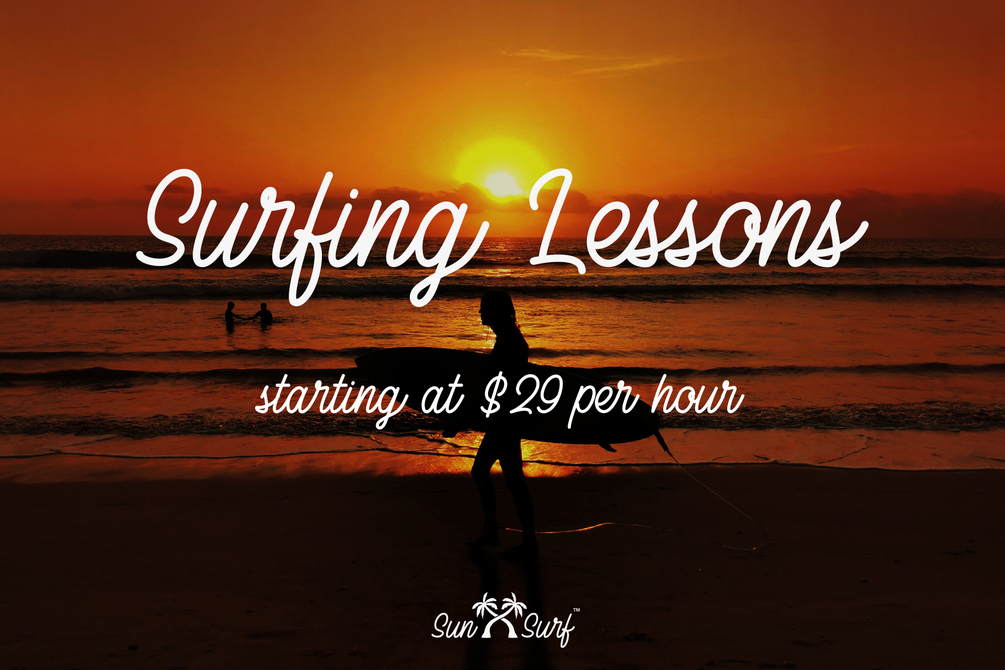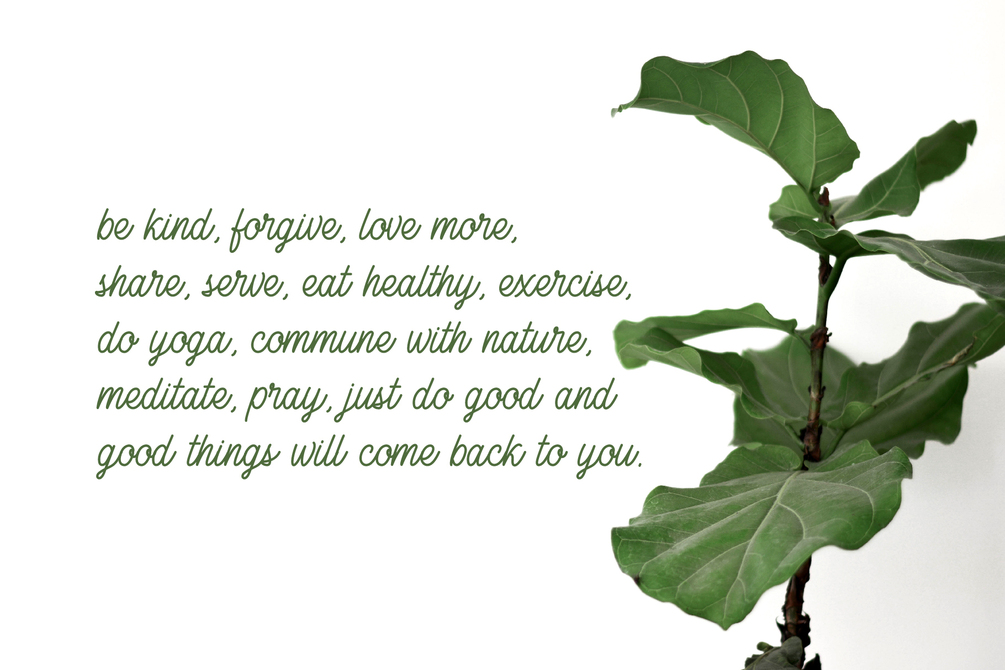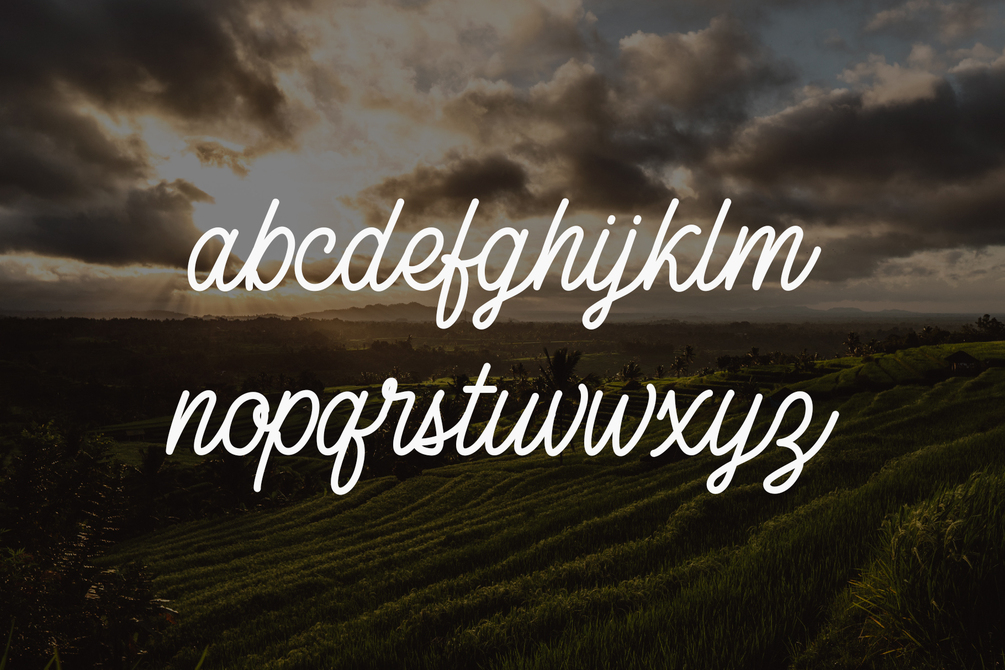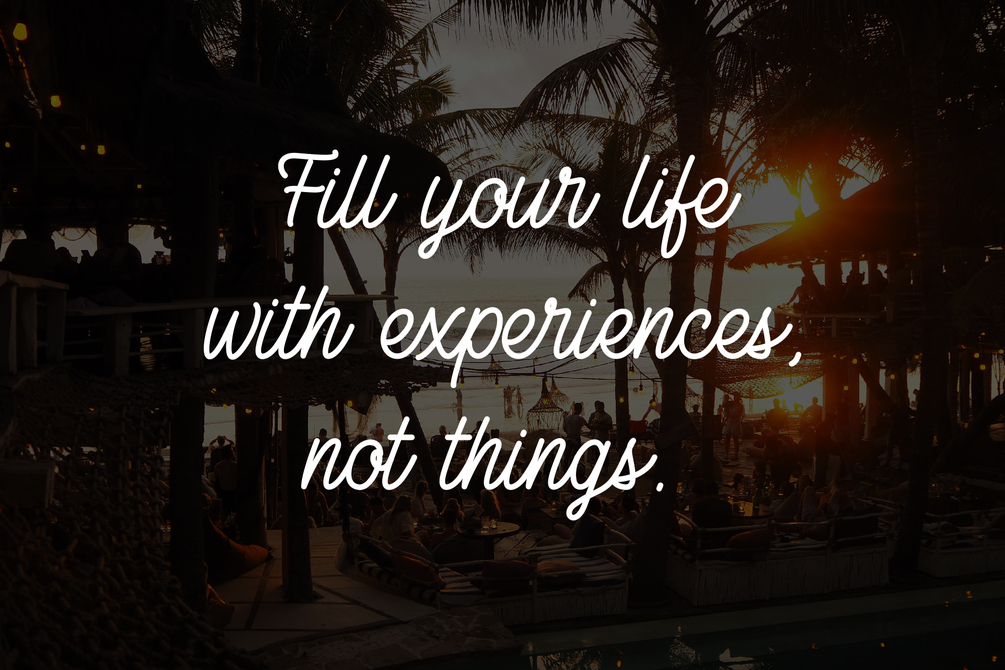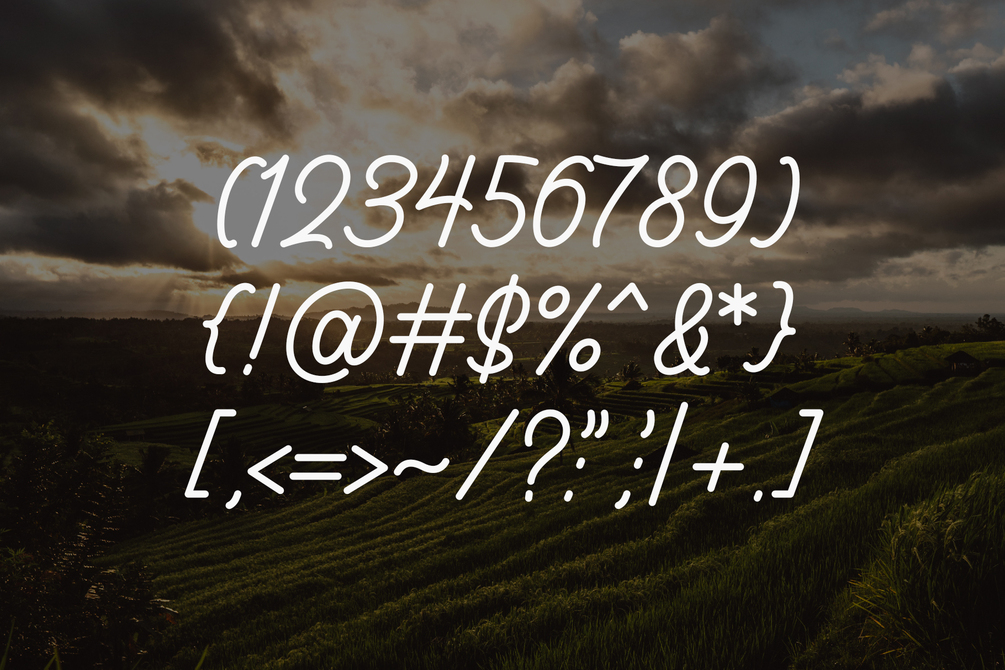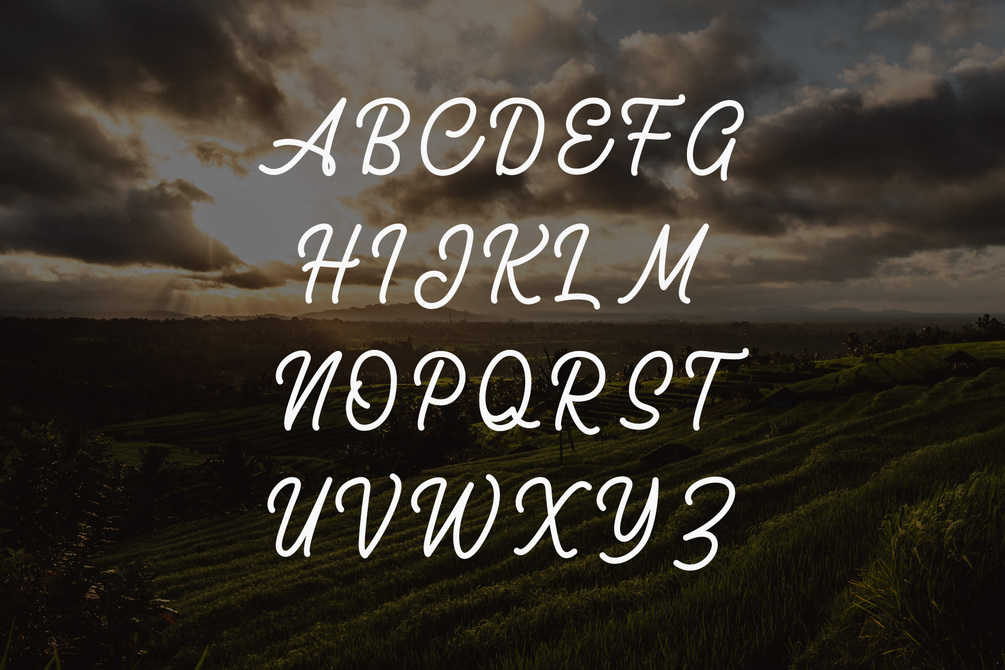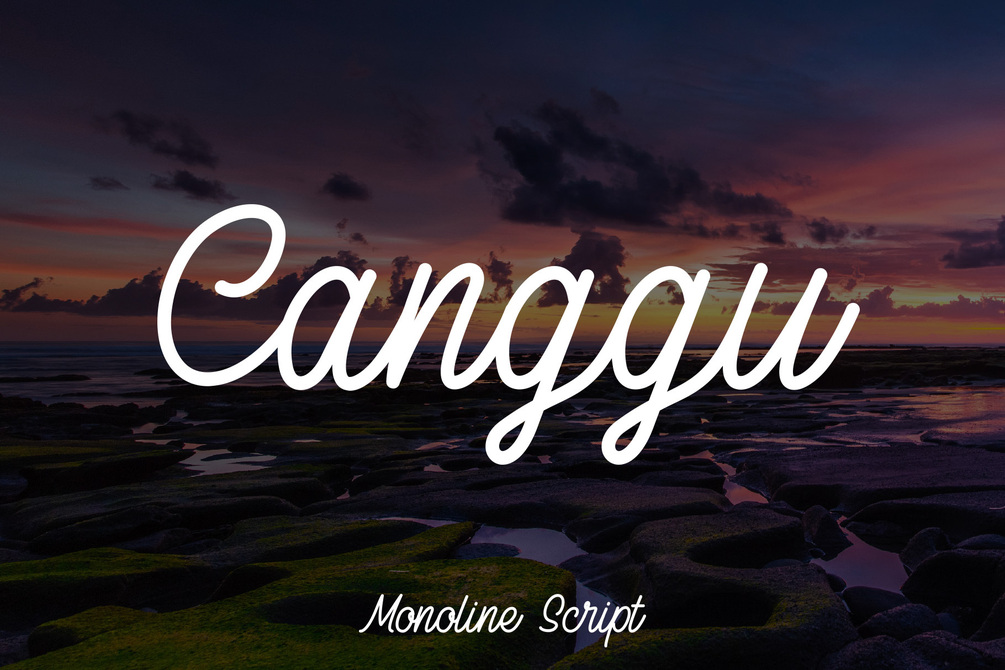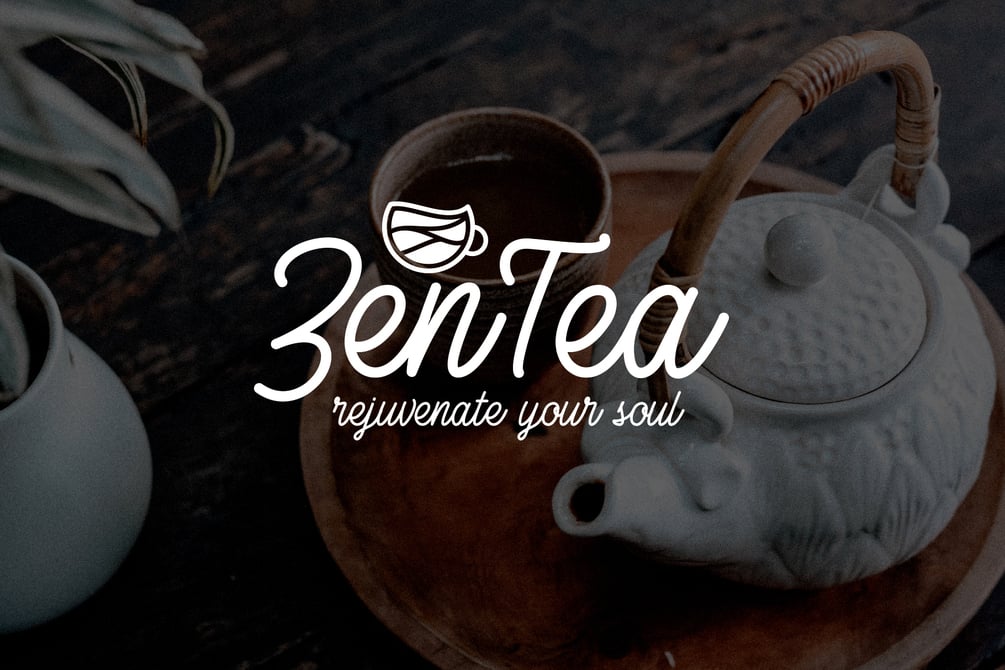
Canggu - Monoline Script Typeface
Canggu is a gorgeous monoline typeface that's perfect for clothing, branding, posters, signage, wedding invitations, badges, t-shirts, labels, and so much more! The typeface was inspired by the typography style of two important decades, the 40’s and 50’s.
Our goal with this font was to create an easily legible script font which would work for a wide variety of purposes. Having that handmade feeling and personal touch will certainly give your projects a hint of authenticity. All the characters have been designed to enhance the overall smoothness, which is undoubtedly useful to maximize the readability.